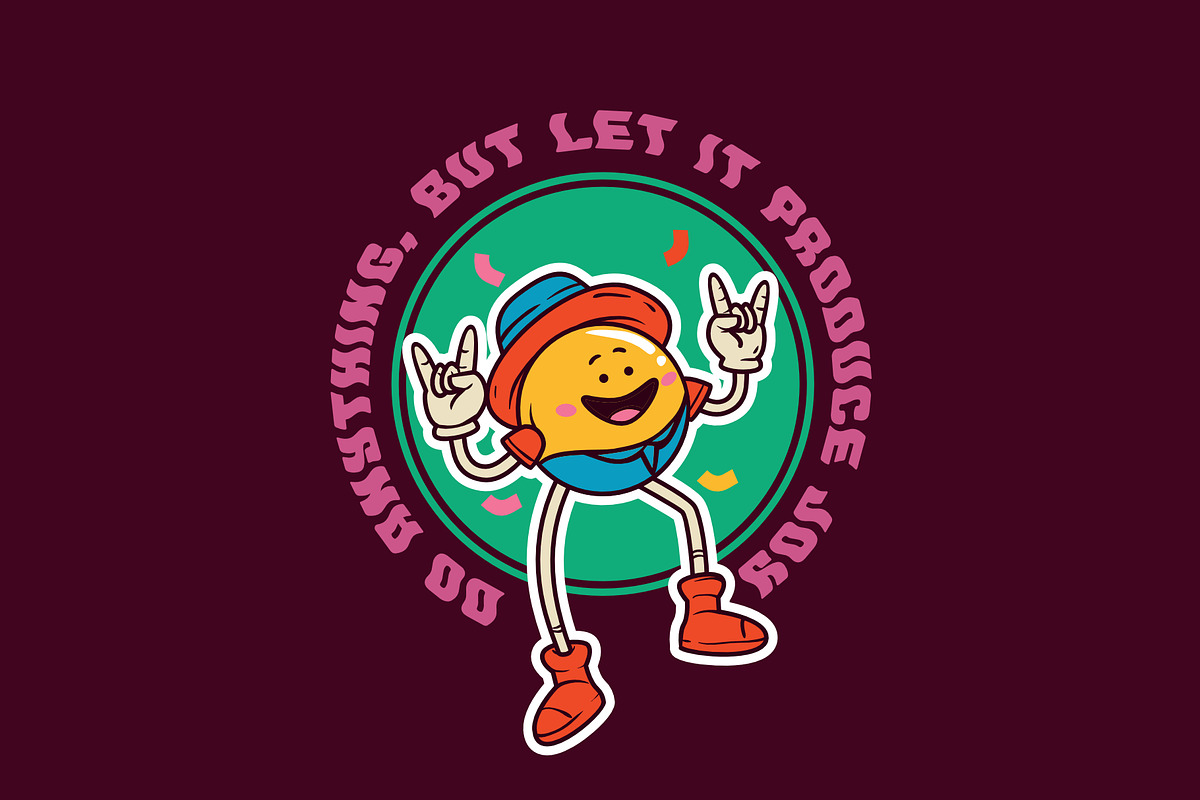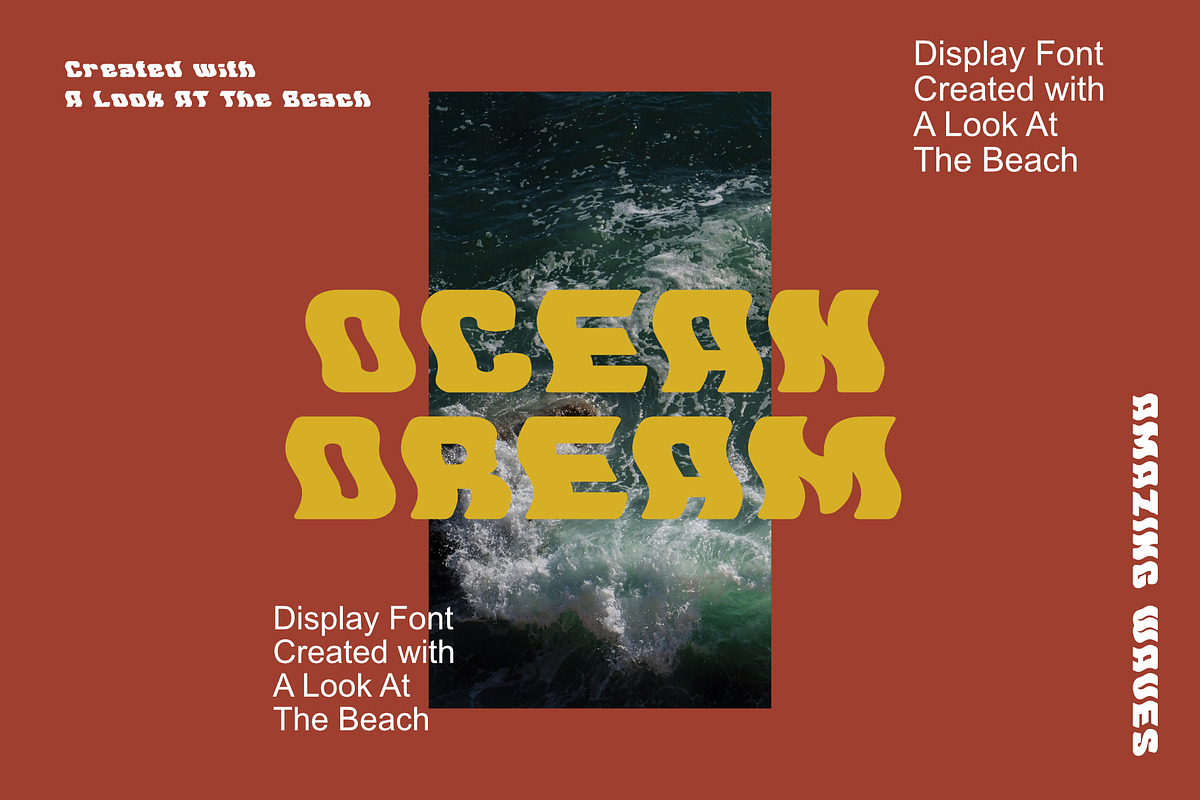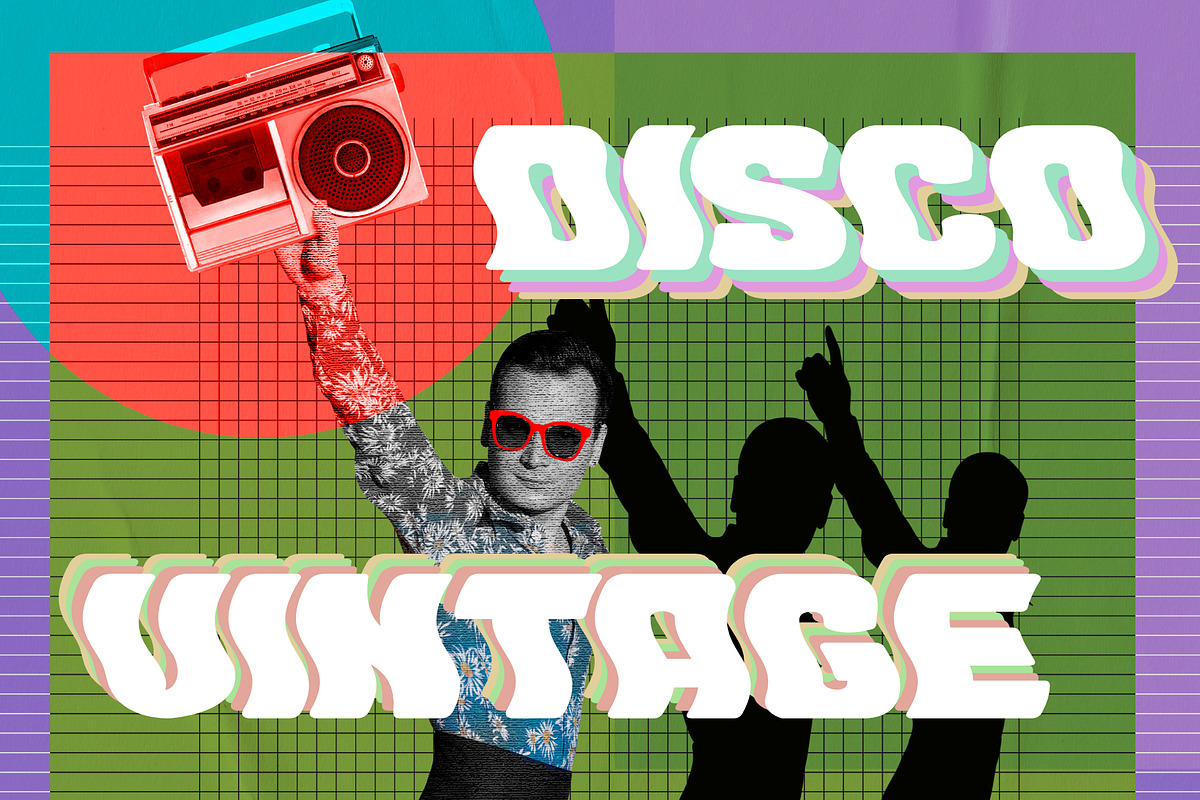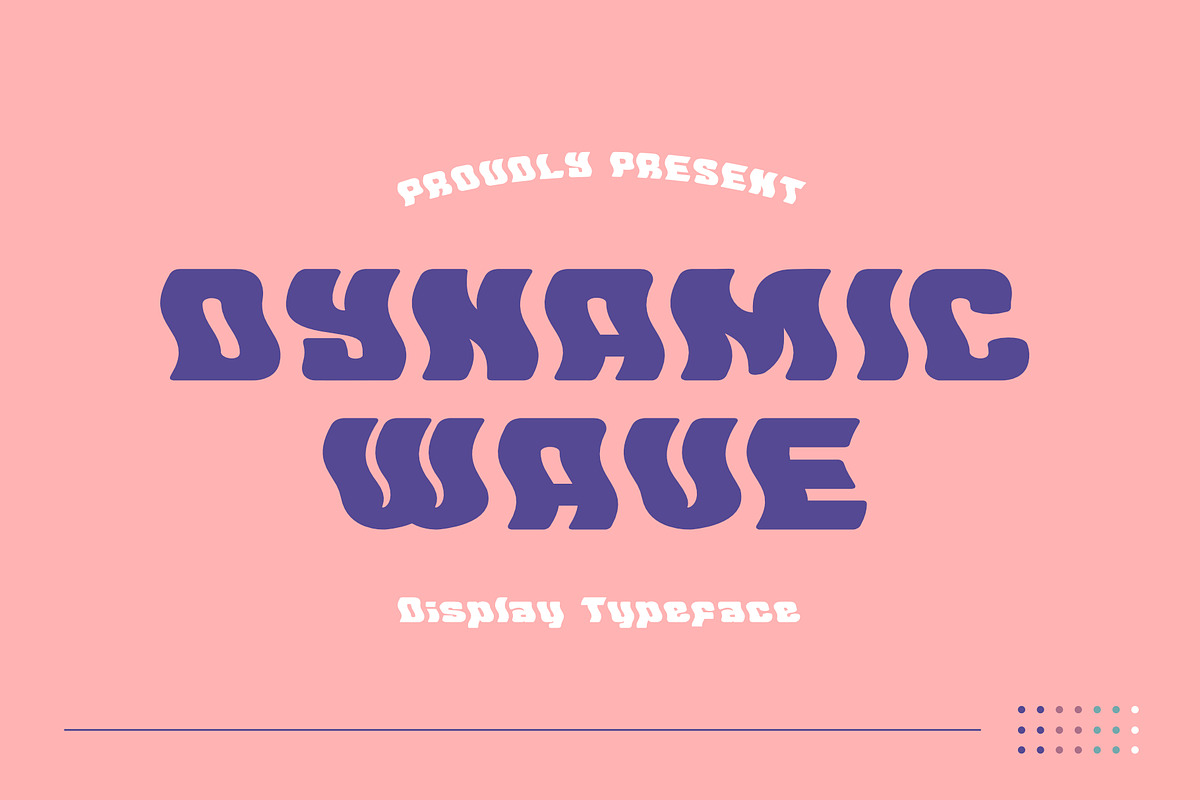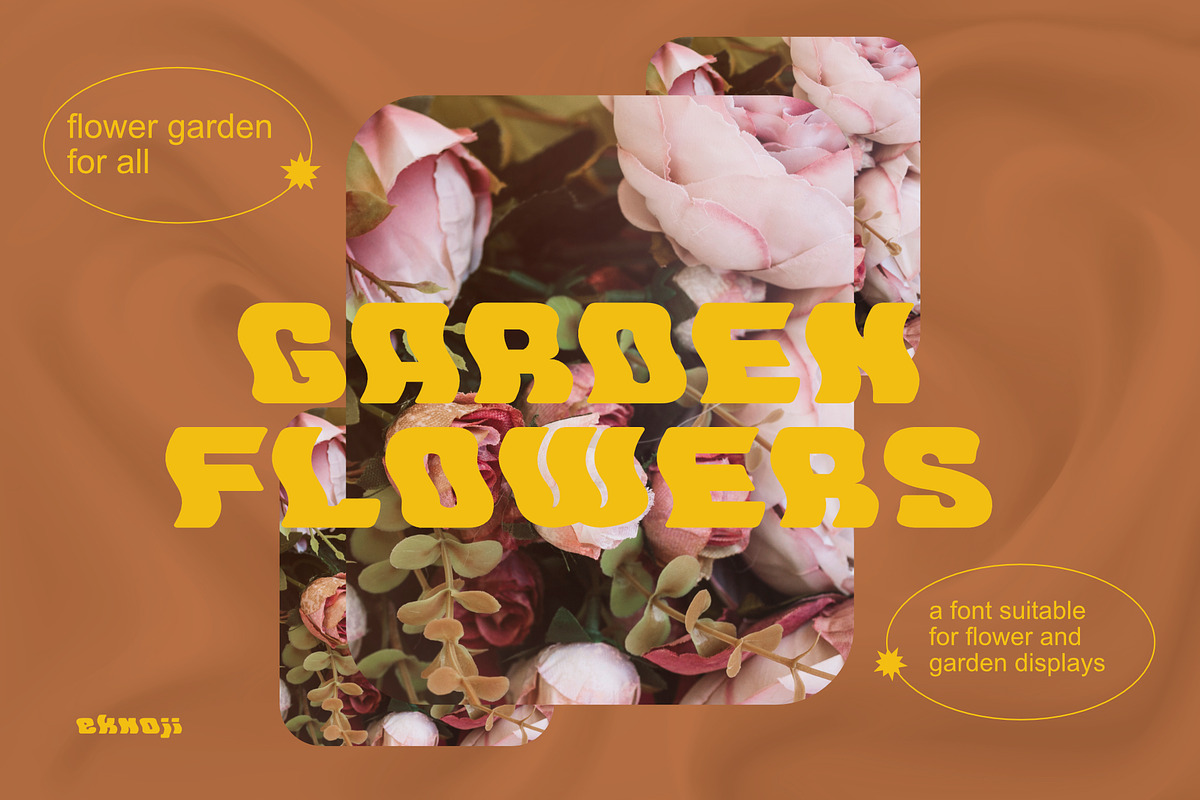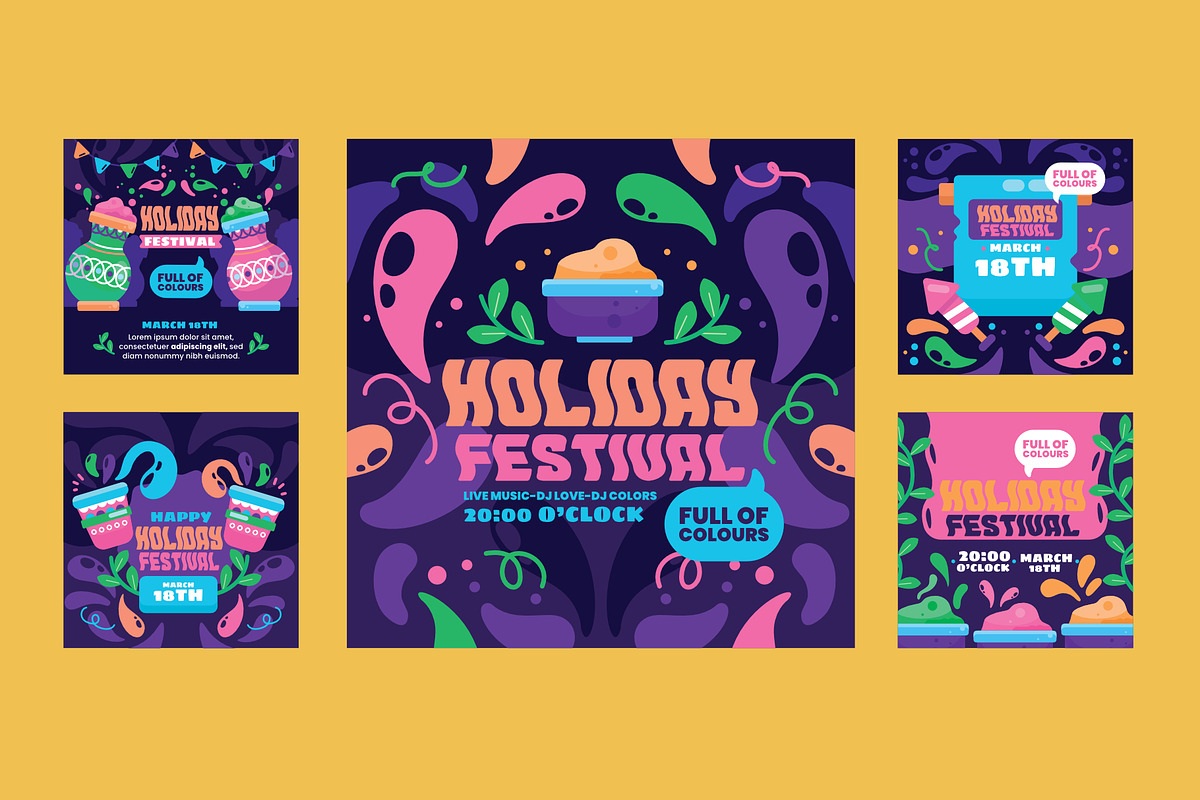
DYNAMIC WAVE - Display Retro Font
It is perfect Bold Display Font for branding,logo, every other design which needs a Dsiplay.
Character set A-Z
Character set a-z
Support multilanguage glyphs